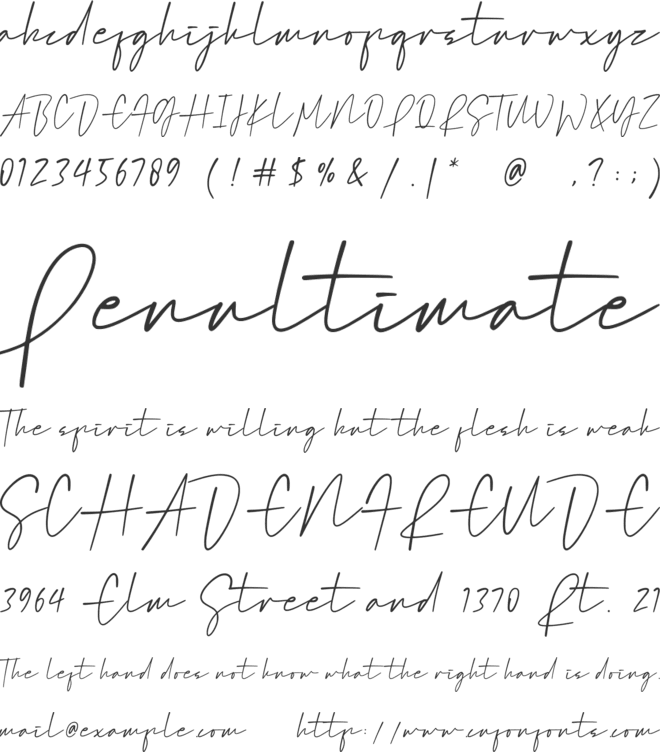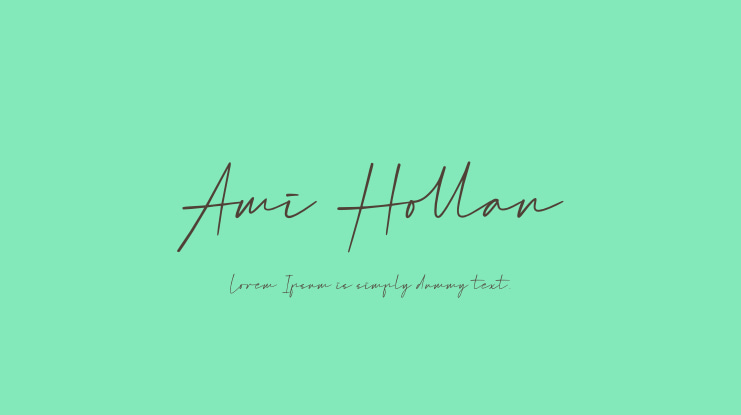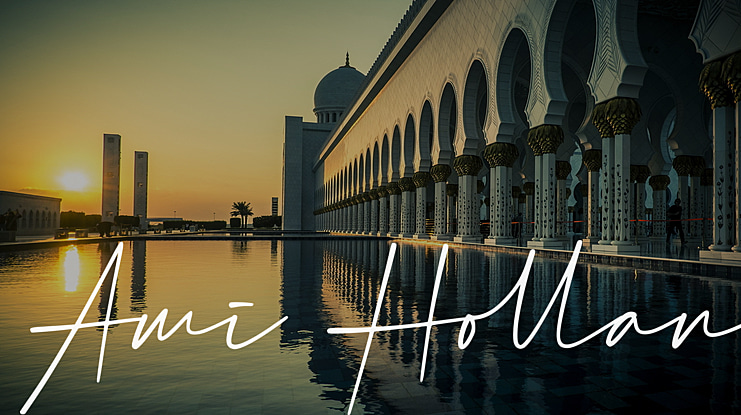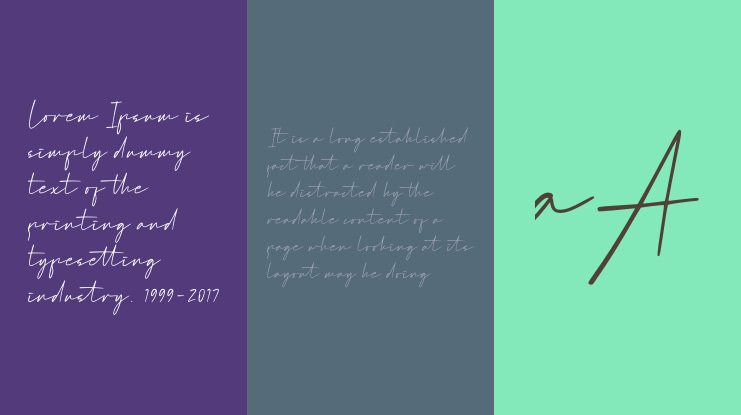
Ami Hollan Font
Ami Hollan is an elegant handwritten signature font with a dynamic flow. Its perfect for signature, branding, logos, business card, photography, covers, social media, quotes, and every other design which needs a handwritten touch. This font is PUA encoded which means you can access all of the glyphs and alternates with ease!Ami Hollan font contains uppercase, lowercase, numerals, punctuations, ligatures, alternates, and multilingual support.